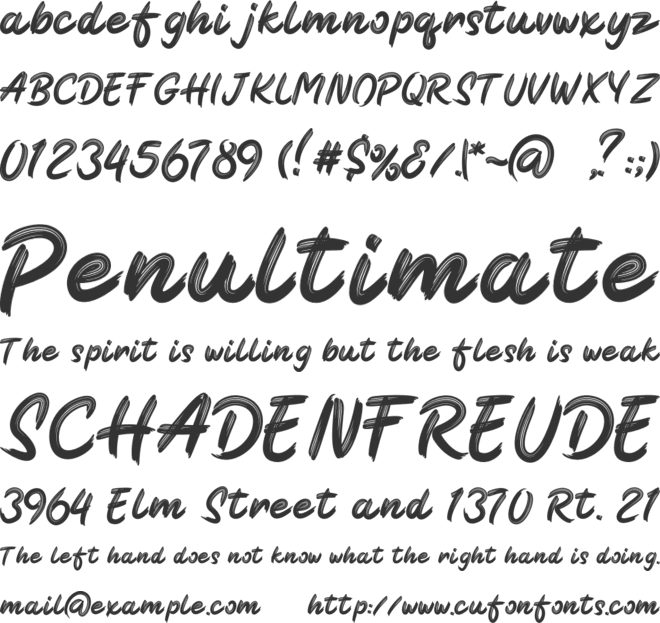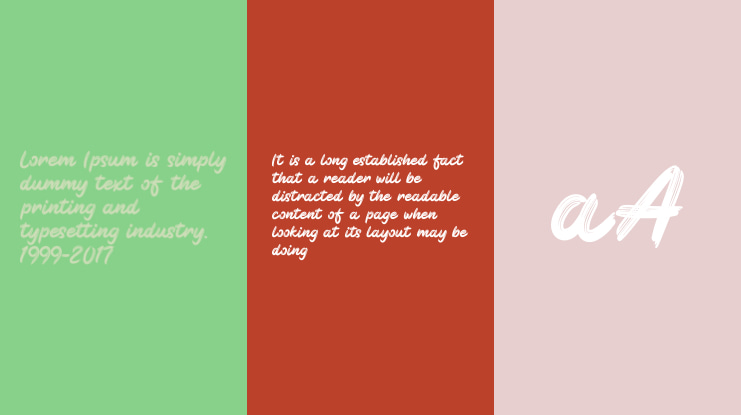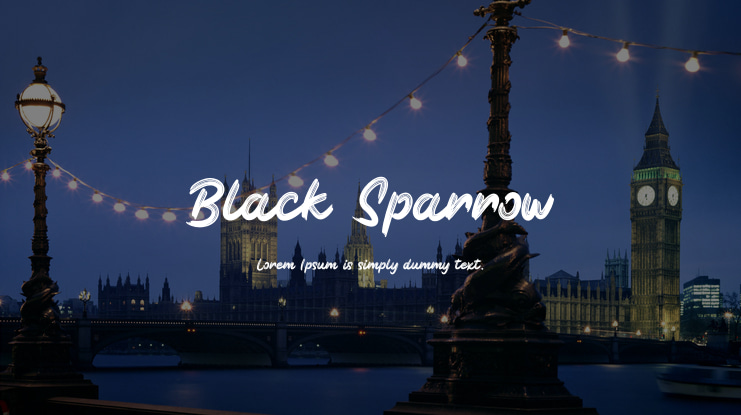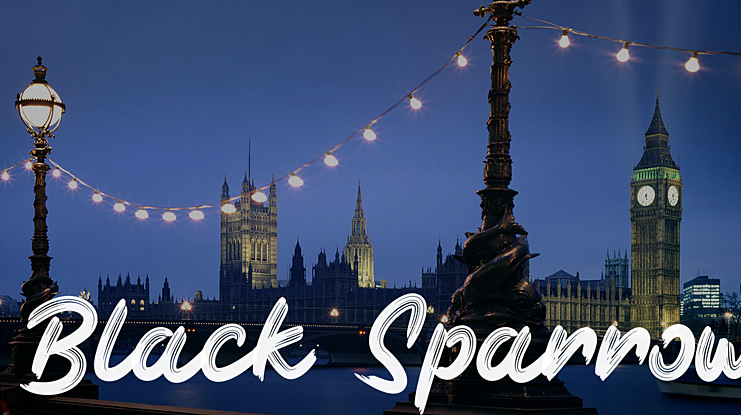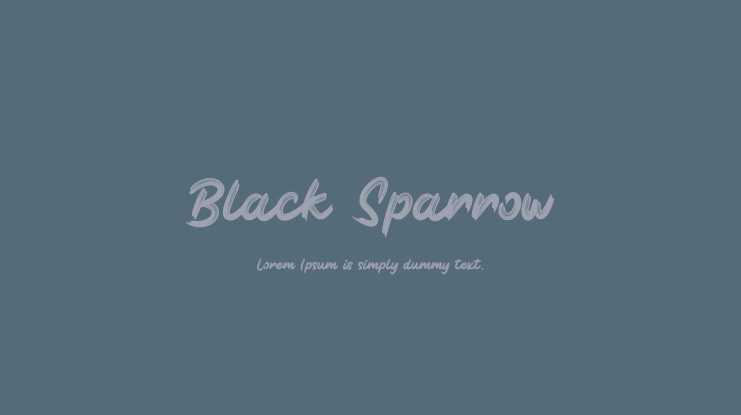
Black Sparrow Font
Black Sparrow is a freestyle handwritten brush font. With a street urban style, youthful theme, and a sporty, masculine accent this font is perfect for displays, titles, logos, packaging, crafts, labels, T-shirts, hoodies, tote bags, posters, stickers, quotes, and any advertising that needs energetic typography.